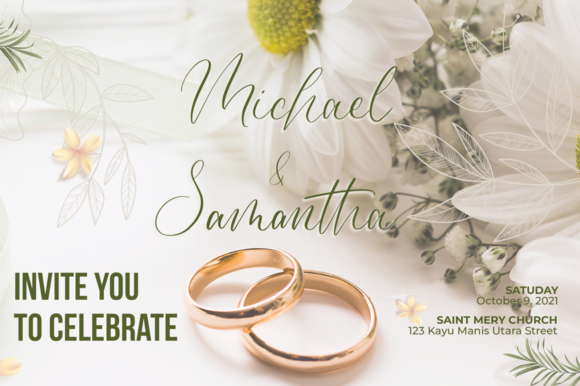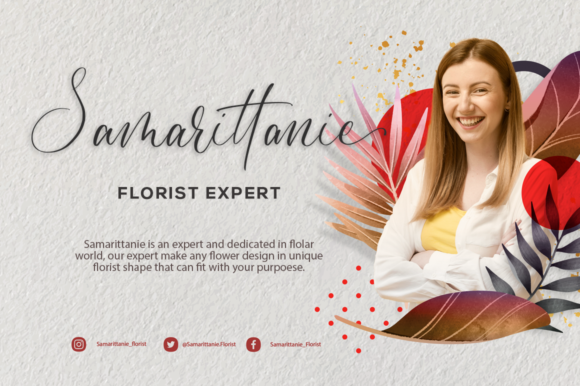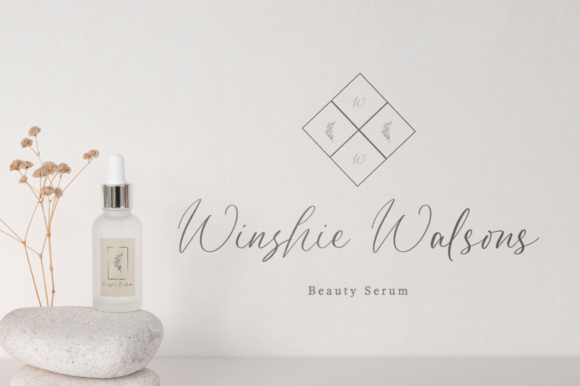
Introduction to Pauletta Font
Imagine you’re brainstorming ideas for your next creative project, and you need the perfect font to elevate your design. You’re scrolling through your favorite font library, searching for that one special font that screams high quality and sophistication. Suddenly, you stumble upon Pauletta Font – a refined script font that exudes elegance and refinement.
Pauletta Font is more than just a pretty face; it’s a design resource that will take your creative projects to the next level. With its stylish alternates and ligatures, you’ll be able to add a touch of sophistication to any design, from wedding invitations to branding materials. Plus, with its PUA encoding, you’ll have easy access to all the glyphs and swashes you need to make your design truly shine.
Key Features of Pauletta Font
- High-quality font suitable for creative projects and design resources.
- Features a unique, elegant design that sets it apart from other fonts in its category.
- Perfect for use in logos, branding materials, and other design elements where a touch of sophistication is required.
Honest Review: Pauletta Font
One of the standout features of Pauletta Font is its versatility. It comes in a range of styles, from elegant to modern, making it suitable for various design applications. I appreciate the transparent background, which allows for seamless integration into different design elements.
- High-quality design with a clear, crisp appearance
- Translucent background for easy integration into design elements
- Wide range of styles to suit various design applications
- Some users may find the font’s style too ornate for certain design projects
Overall, I’m impressed with the Pauletta Font. It’s a reliable design resource that’s perfect for creative projects. While it has some limitations, its strengths far outweigh its weaknesses, making it a valuable addition to any designer’s toolkit.
For the best results, use Pauletta Font in conjunction with a high-quality image or background. This font is perfect for creative projects that require a touch of elegance and sophistication. You can also experiment with different font sizes and styles to create a unique design.
Pauletta Font is ideal for use in wedding invitations, business cards, and other design projects that require a touch of class. You can also use it to create a beautiful and elegant title or heading for your design. With its transparent background, you can easily layer it over an image or background to create a stunning effect.